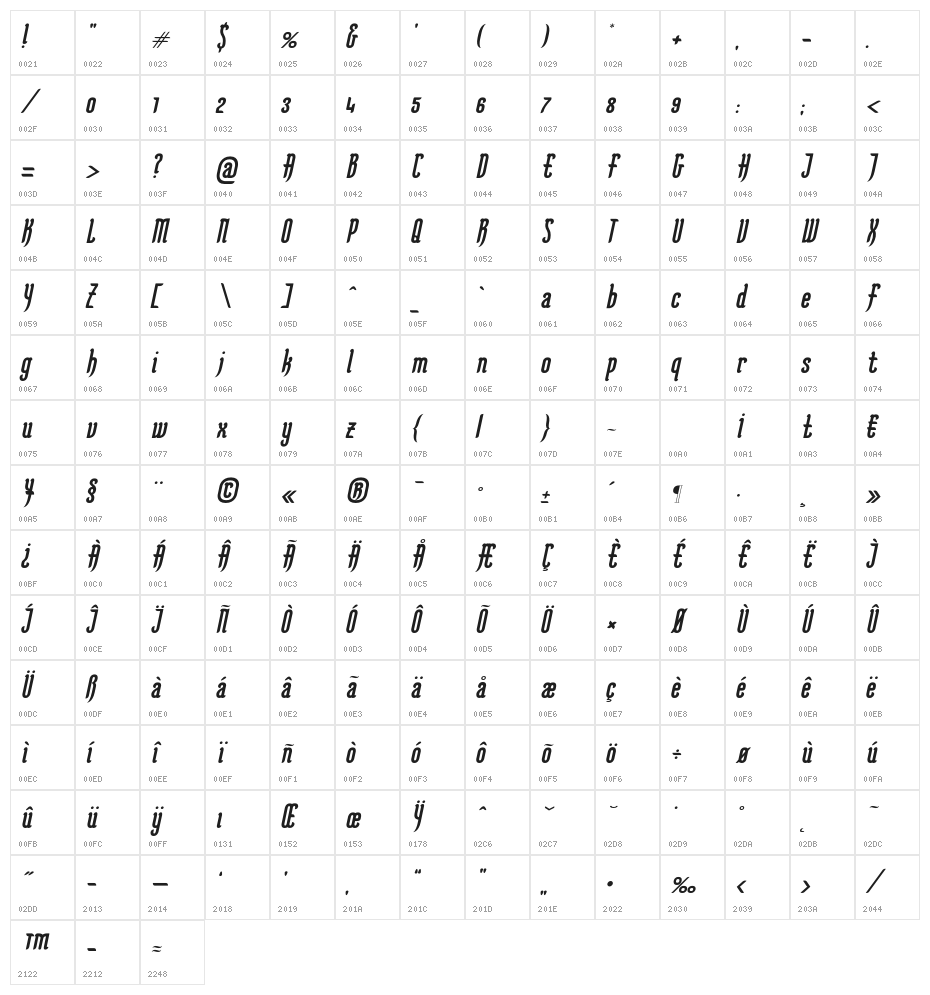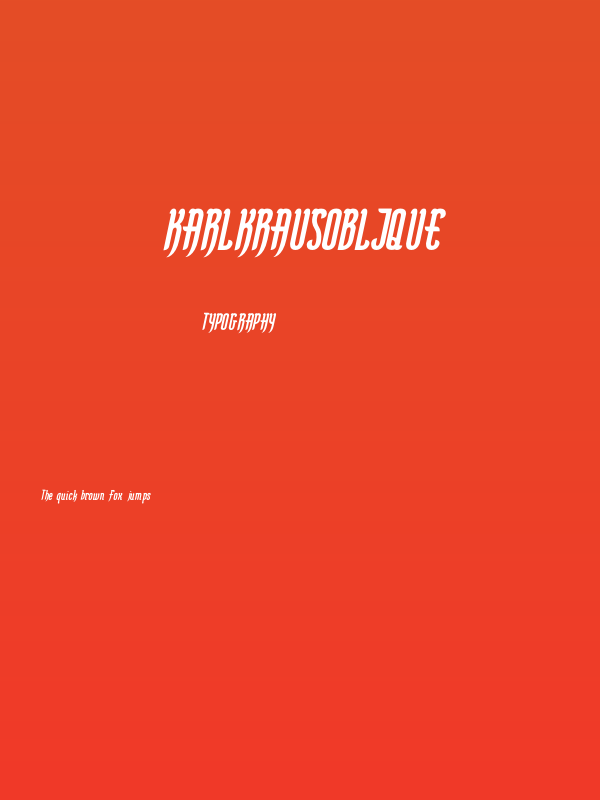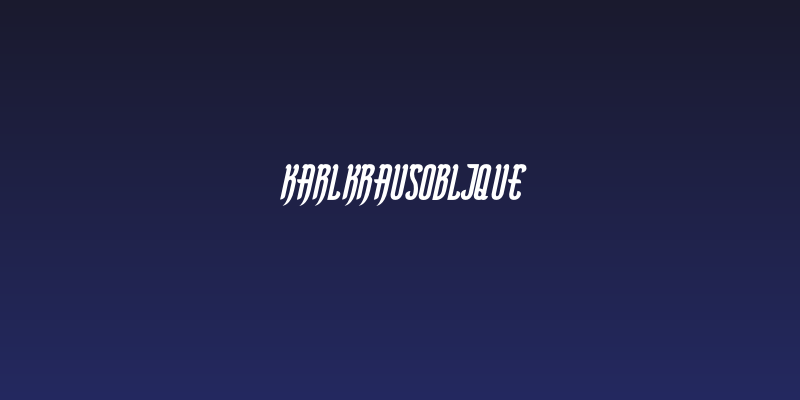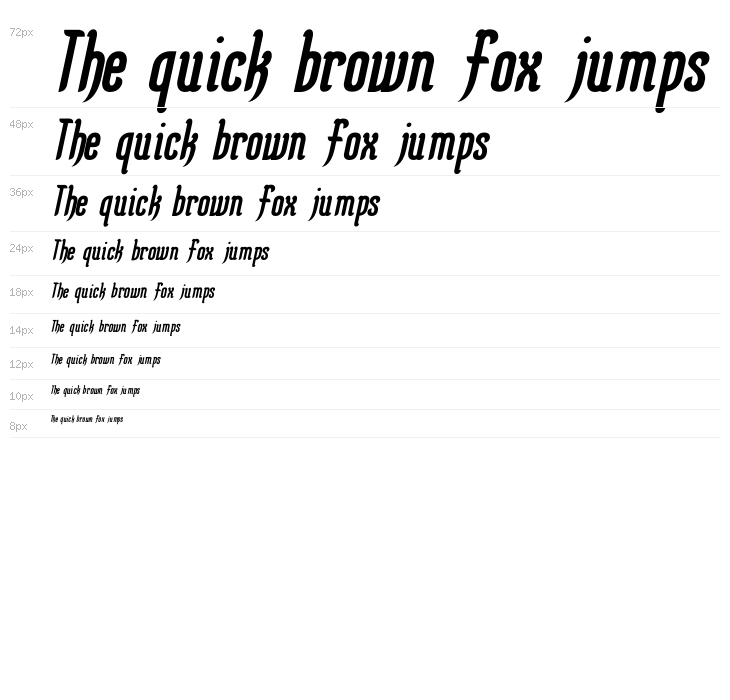
KarlKrausOblique Font
KarlKrausOblique Description
This font features a bold and dynamic style with a distinct oblique slant, giving it a sense of motion and energy. The characters are tightly spaced, enhancing its compact appearance. The uppercase letters are tall and commanding, while the lowercase letters maintain a consistent flow, complementing the overall design. The numerals are equally bold, ensuring readability and impact. Special characters are crafted with the same attention to detail, making them suitable for various design needs. The font's high contrast between thick and thin strokes adds to its striking visual appeal, making it ideal for attention-grabbing headlines and logos.
| Proposed Projects | Ideal for branding, posters, and editorial design where a strong, energetic presence is desired. |